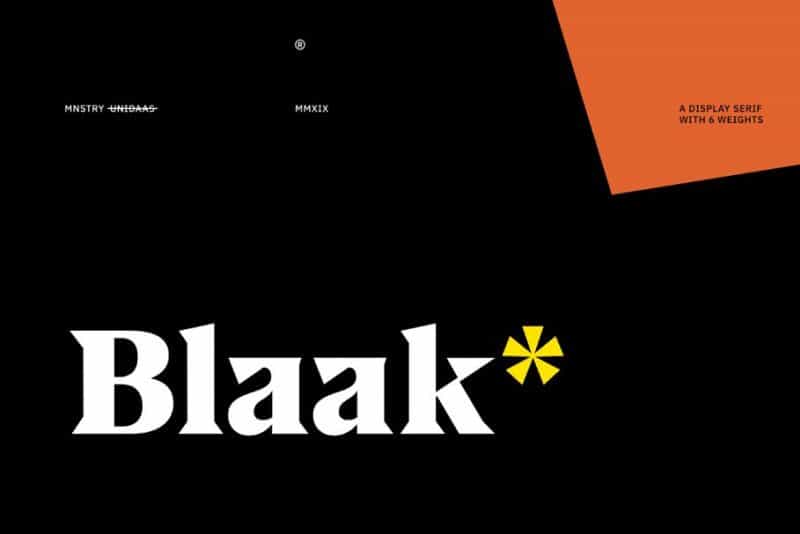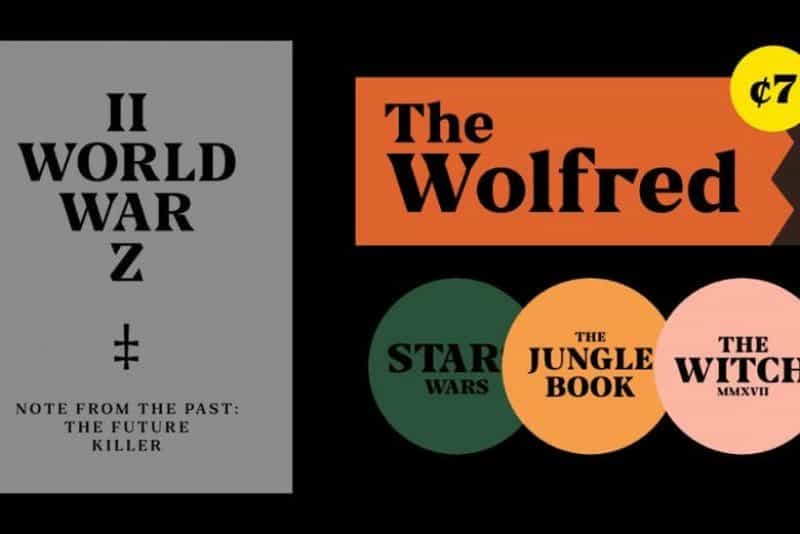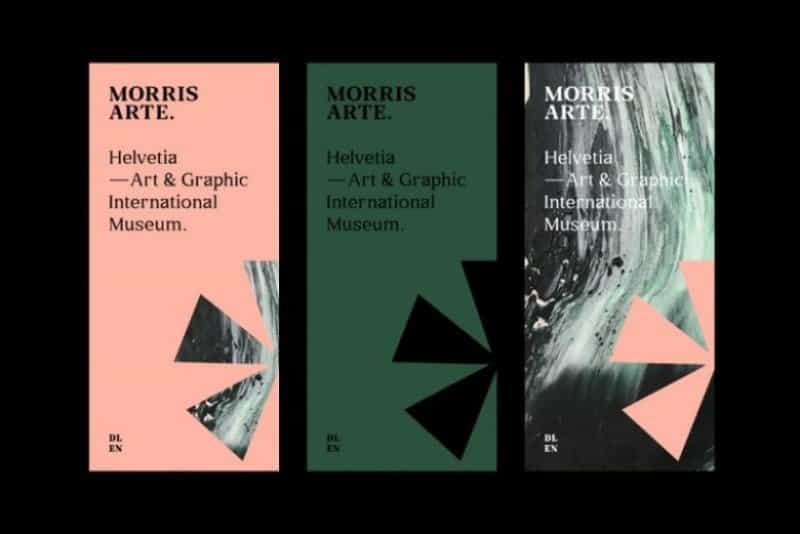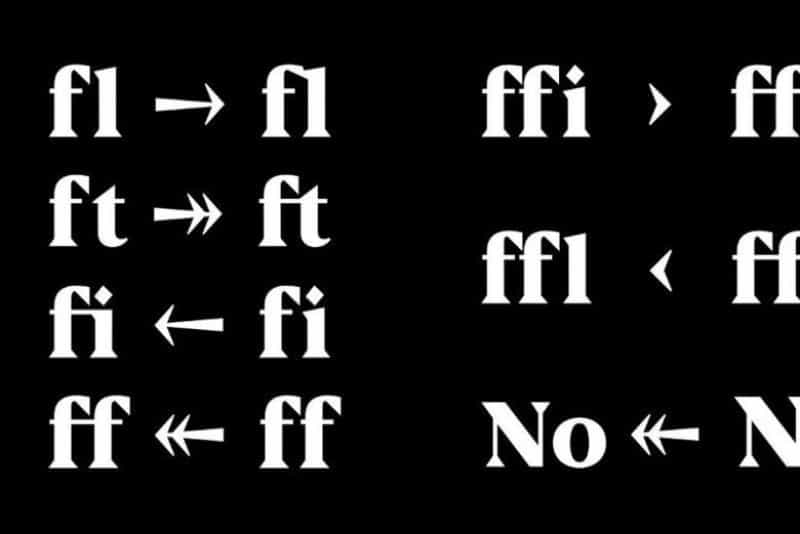
Hello there:) Font Blaak is a display serif font with 6 weights. Blaak is a typeface developed by Mans Greback and shared with the public. Blaak is the interpretation of a Modern Classic typeface with a beautiful and strong impression for editorial design.